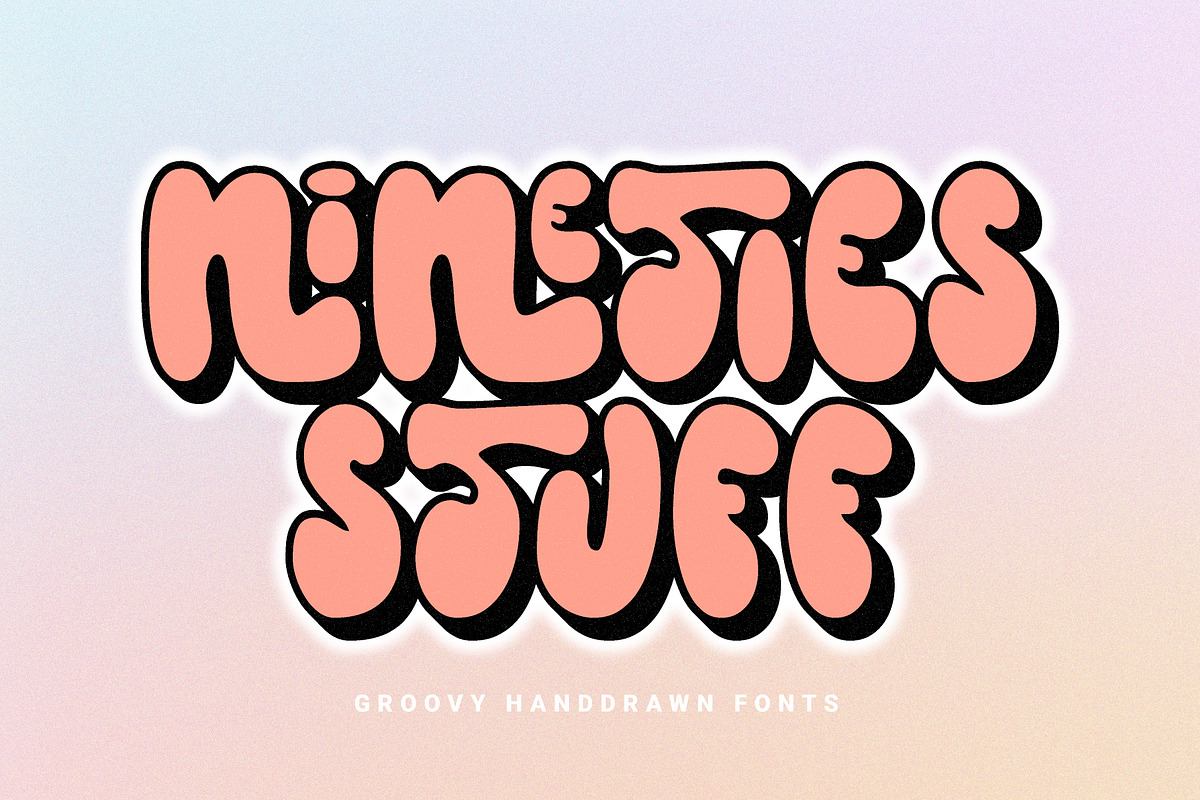
Nineties Stuff - Groovy Font Free Download
Looking to bring a nostalgic and funky vibe to your design project? Look no further than Nineties Stuff - Groovy Font Free Download. This retro-inspired typeface captures the fun, colorful spirit of the 90s with its bold curves and playful lettering. Whether you're working on a throwback poster, a trendy Instagram graphic, or a creative branding project, this font brings personality and flair to your visuals.
Designers love this font for its eye-catching style and vintage feel. The Nineties Stuff - Groovy Font is perfect for headlines, apparel designs, event flyers, and more. Its versatility makes it a great choice for both print and digital mediums.